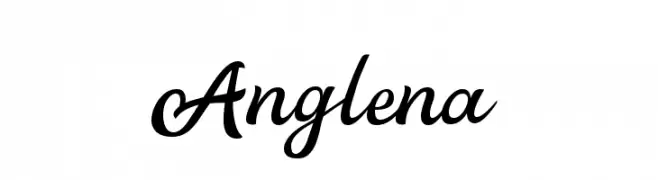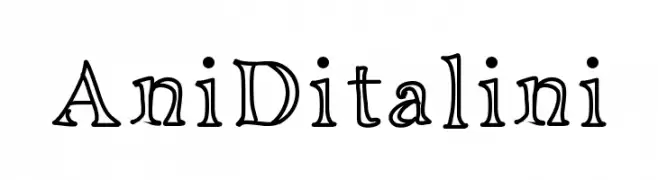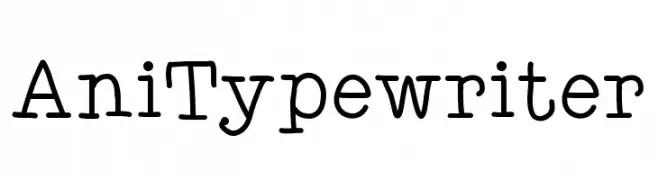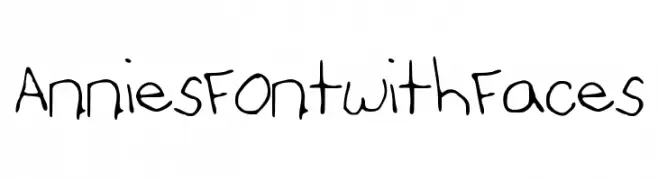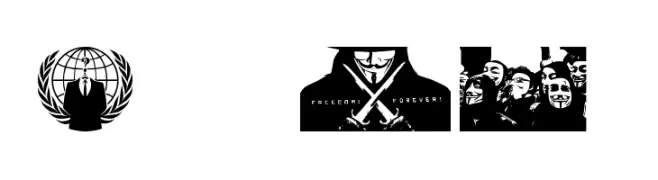
A dynamic and flowing script font with elegant, cursive letterforms.
A playful, decorative font with a hand-drawn, whimsical style.
A bold, brush-stroke font with an expressive and artistic style.
A bold, expressive font with a hand-drawn, brush stroke style.
A classic typewriter-style font with monospaced, slightly serifed characters.
A playful, casual handwritten font with irregular strokes and a whimsical appearance.
Decorative pictogram set with anonymous and mask motifs.
A modern, sleek font with tall, narrow characters and a minimalist design.
A bold, flowing script font with elegant, cursive letterforms.
A bold, graffiti-inspired font with dynamic, angular characters.